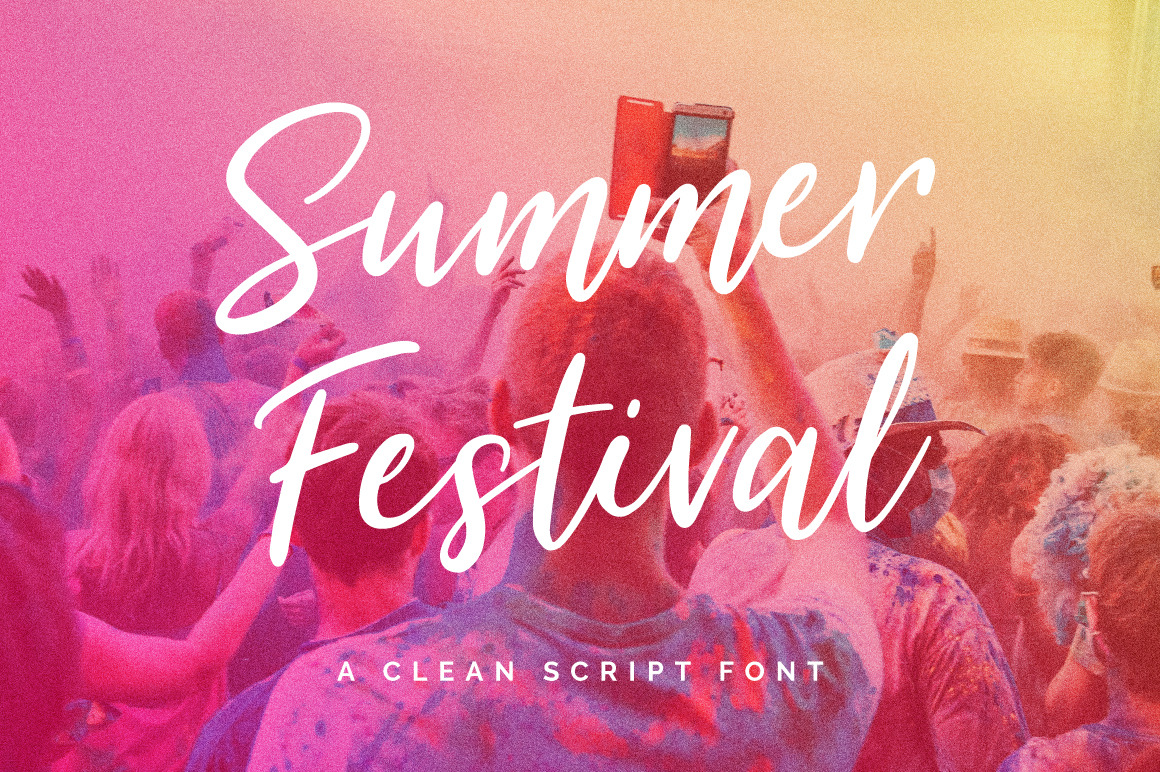
Summer Festival Typeface
Summer Festival is a hand made crafted with love. It's authentically hand lettered in my beautiful studio! The pack includes alternates for lowercase characters to make it look like freshly hand written. Designed to work perfectly in multiple designs like wedding invitations, website logos, Instagram posts and many many more.